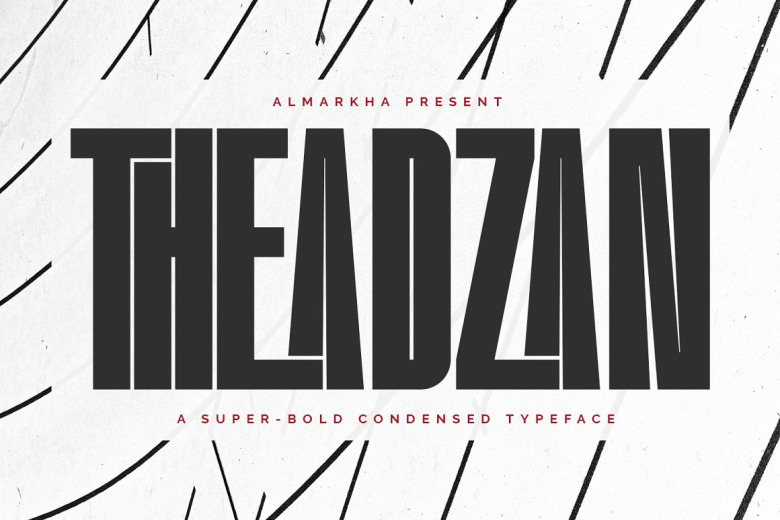
Theadzan Font
Thadzan font with strong overtones of challenge. Ten glyph ligatures are made for this font type- a feature that can be expected from none other than this! perfectly suited to use in headers, typography, clothing style, posters, magazines, brochures, packing design and websites needs your designs look more refined professional.
Theadzan Bold Sans Serif Font